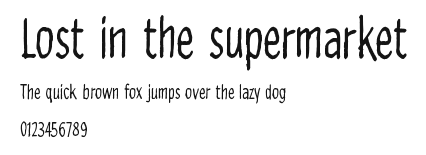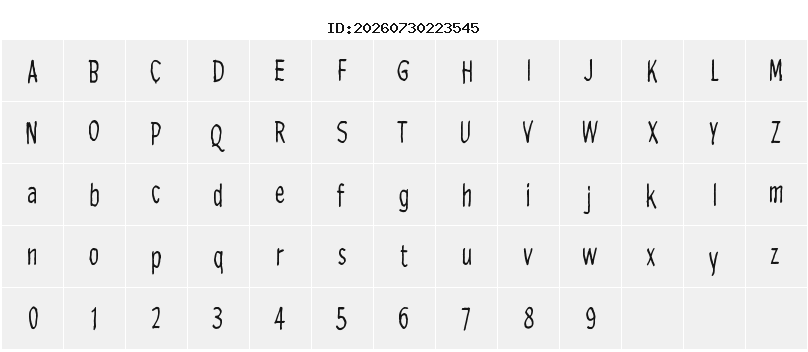
Lost in the supermarket Preview
• Font Name: Lost in the supermarket
• Font ID: Lost in the supermarket:Version 1.00
• Full Font Name: Lost in the supermarket
About Lost in the supermarket.ttf
Lost in the supermarket.ttf is a modern, elegant sans-serif font designed for ultimate readability and visual harmony. Perfect for branding, headlines, web design, and print materials.